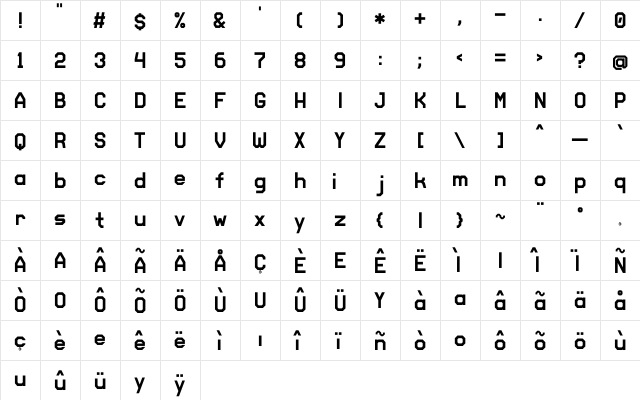
College Sans Regular
Design Context for College Sans Typeface
College Sans brings high-energy athletic personality to the page — its confident, muscular forms are built for impact.
Built for sports team identities, athletic apparel, event posters, and high-energy promotional material.
Font Pairing: Use alongside a condensed or geometric sans for supporting copy — keep the pairing bold, functional, and free of ornament.
Pro Tip: College Sans thrives on contrast — try it large, bold, and tight against a clean background for maximum visual impact.